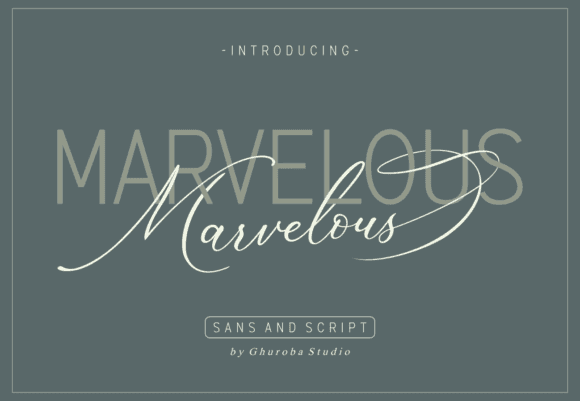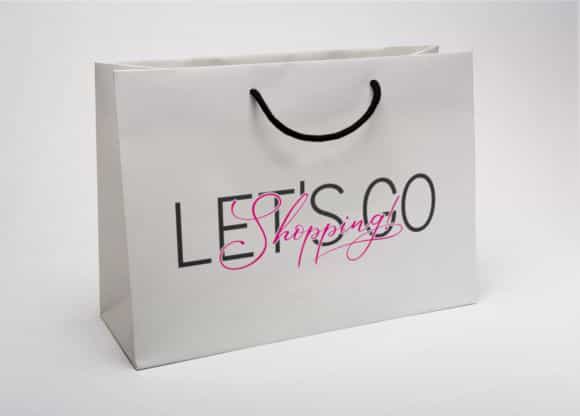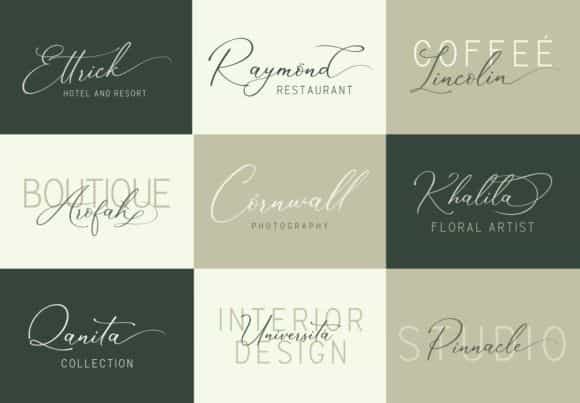
Introducing Marvelous. Marvelous Font Duo is the perfect combination of two delightful script and sans fonts which are designed to harmonize each other by their elegance and contemporary style. It is the ideal for branding, invitations, business cards, weddings, logo design and quotes.